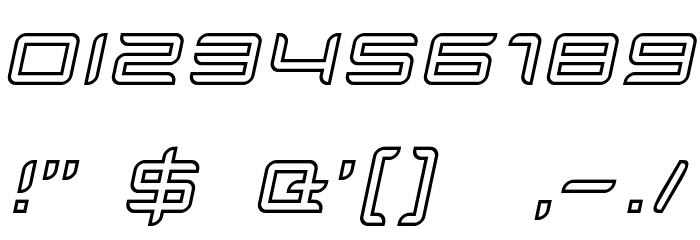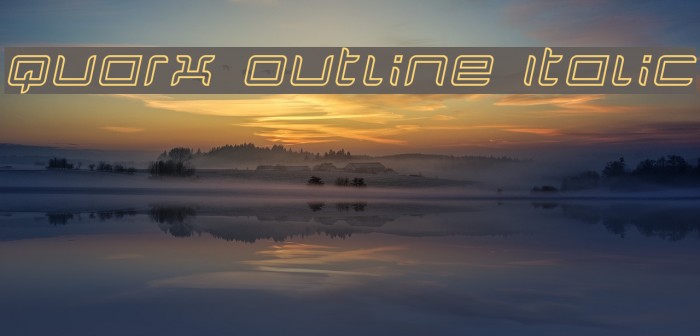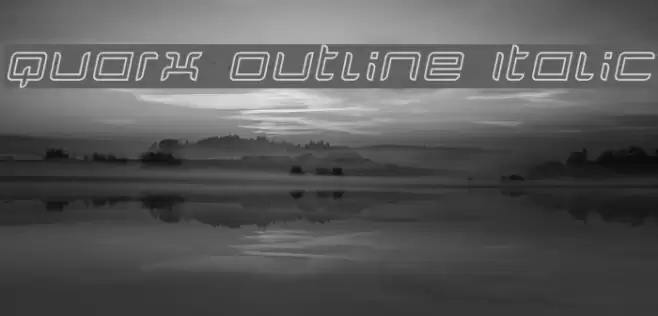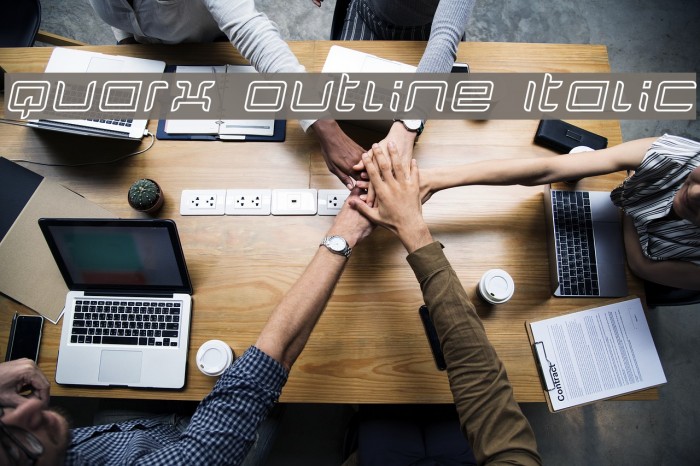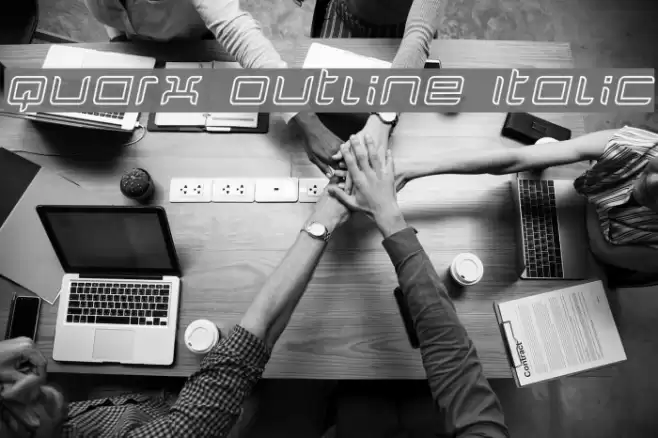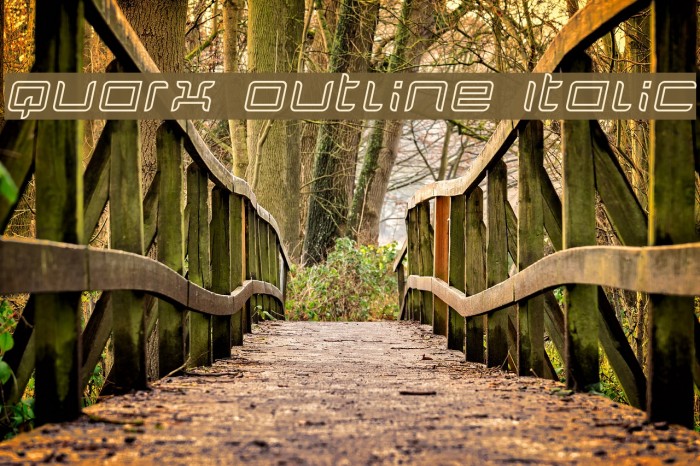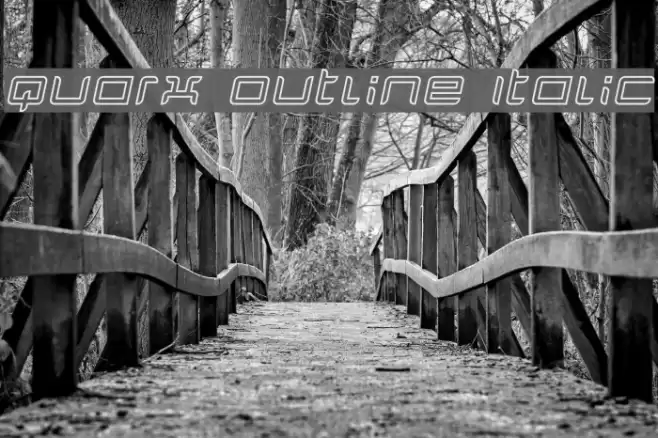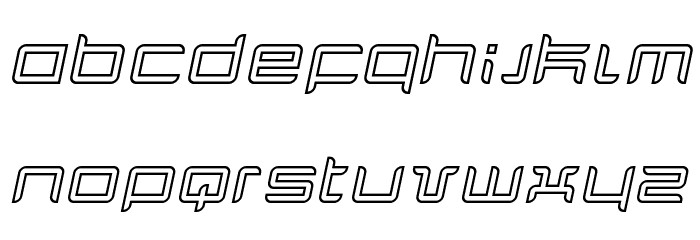
Quarx Outline Italic Font
Quarx Outline Italic Description
This font features a unique outline style with a futuristic and geometric design. Each character is crafted with precision, showcasing clean lines and a consistent stroke width that gives it a modern and sleek appearance. The italic slant adds a dynamic and forward-moving feel, making it ideal for projects that require a sense of motion or progress. The uppercase and lowercase letters maintain a uniform height, contributing to a cohesive look. Numbers and special characters are designed with the same attention to detail, ensuring versatility across various applications.
| Use Case | Logos, Headlines, Posters |
| Proposed Projects | Ideal for tech-related branding, futuristic posters, and innovative product packaging. |